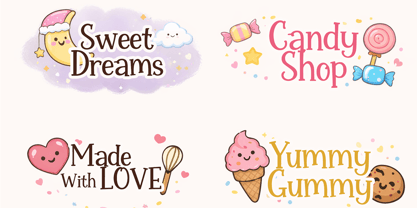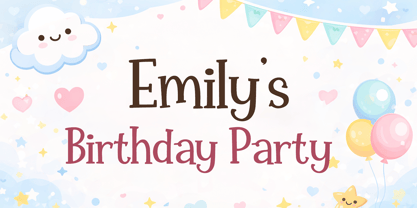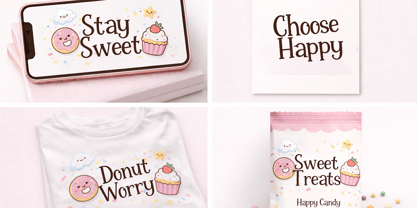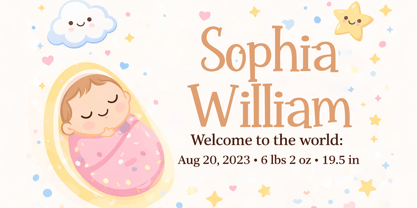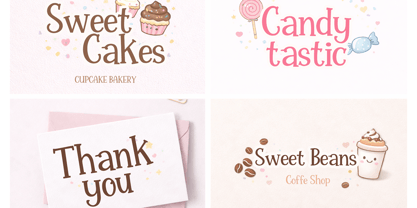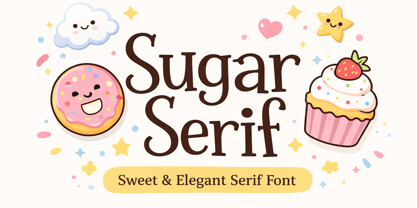
Sugar Serif
by Cocodesign
The Sugar Serif Font Family was designed by Muhammad Zaini and published by Cocodesign. Sugar Serif contains 2 styles and family package options. More about this family
Sugar Serif is a decorative serif font with a sweet and elegant touch, featuring soft, modern, and clean characters that make it perfect for creative projects such as branding, logos, product packaging, social media designs, posters, children’s book covers, invitations, and merchandise, with balanced letterforms, smooth serif details, high readability, and a professional yet playful appearance in one complete typeface.
Designers: Muhammad Zaini
Foundry: Cocodesign